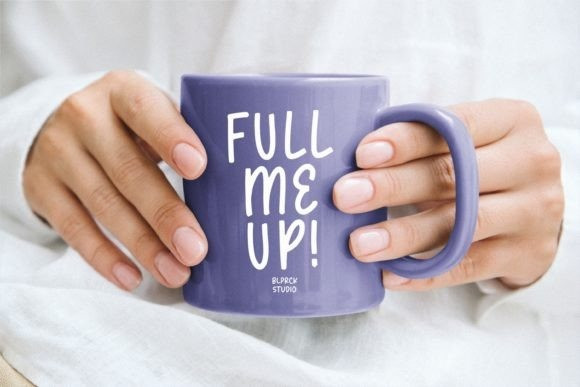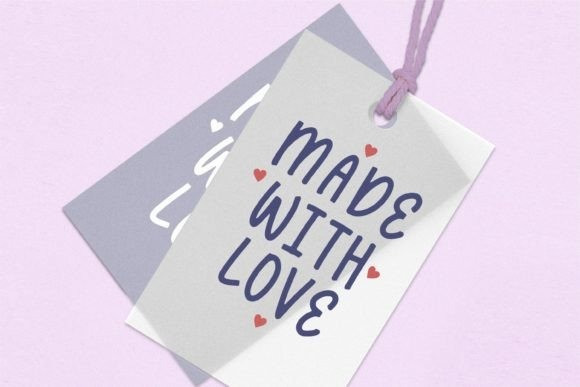
Blueberry Spring Font
Blueberry Spring Font is a Handwritten Font. Our handwritten font takes inspiration from the fluidity and uniqueness of human handwriting, ensuring that each letter carries a sense of character and charm. With its graceful curves and delicate strokes, this font adds an intimate and personal feel to your written words.
Perfect for creating notes, memos, journal entries, or beautiful quote designs, our handwritten font elevates your messages with a sense of authenticity and warmth. It transforms your ordinary words into a beautiful composition, breathing life into your writing.